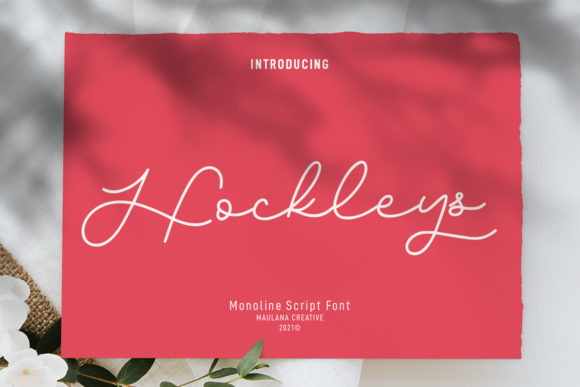
Unleash the captivating charm of Hockleys, a font that embodies elegance and grace. Its slender strokes and flowing lines evoke a sense of timeless beauty, making it the perfect choice for creating heartfelt and memorable designs.
Indulge in the versatility of Hockleys, effortlessly adapting to a myriad of creative endeavors. From the delicate strokes of wedding invitations to the artistic flair of stationary art, Hockleys transforms your vision into masterpieces. Its presence in social media posts commands attention, captivating hearts with its subtle yet striking allure.
Let Hockleys elevate your designs to new heights, where each letter becomes a reflection of your unique style. Its intricate details and graceful curves will leave a lasting impression on all who behold your creations. Immerse yourself in the captivating world of Hockleys and embrace the beauty of timeless elegance.